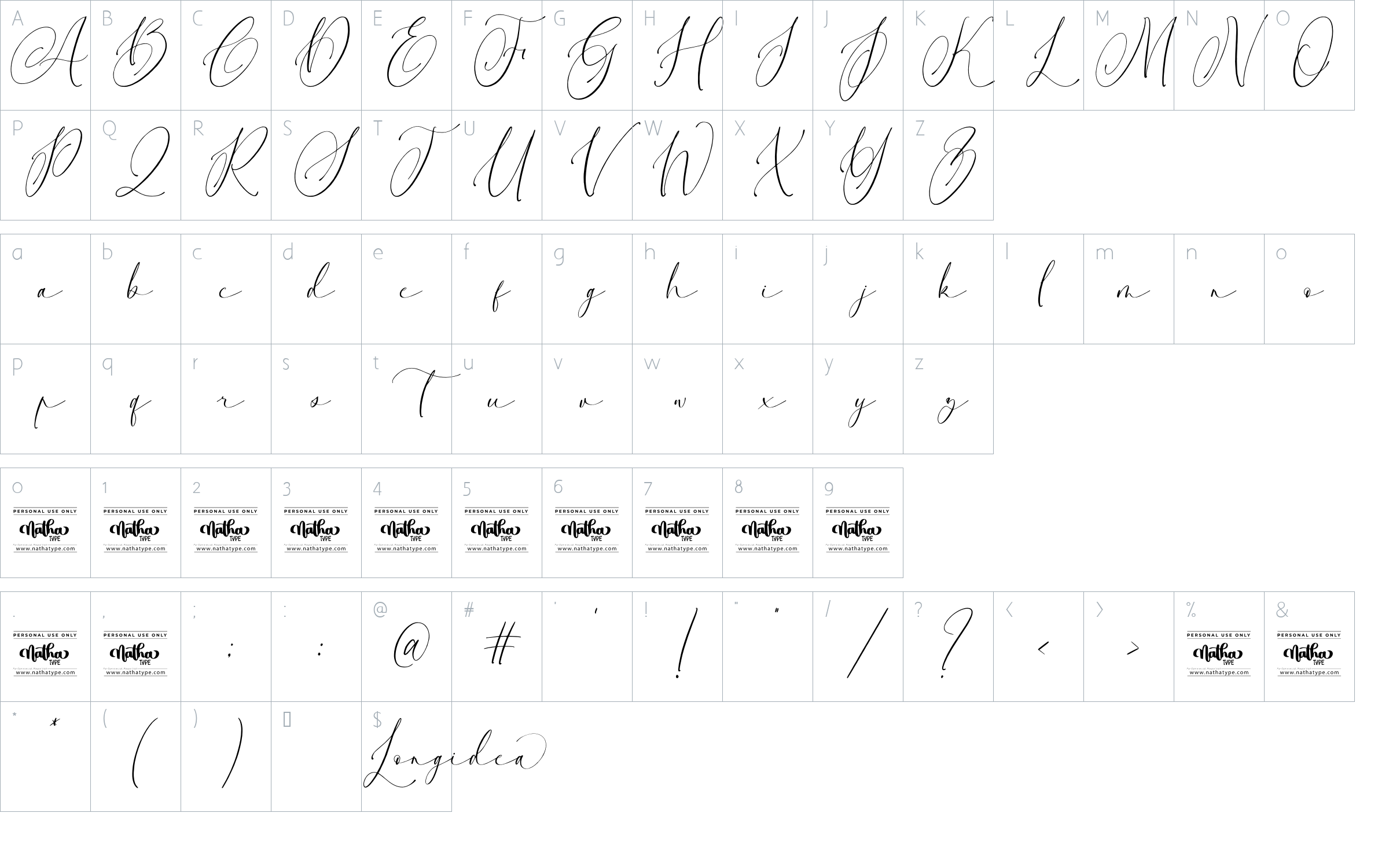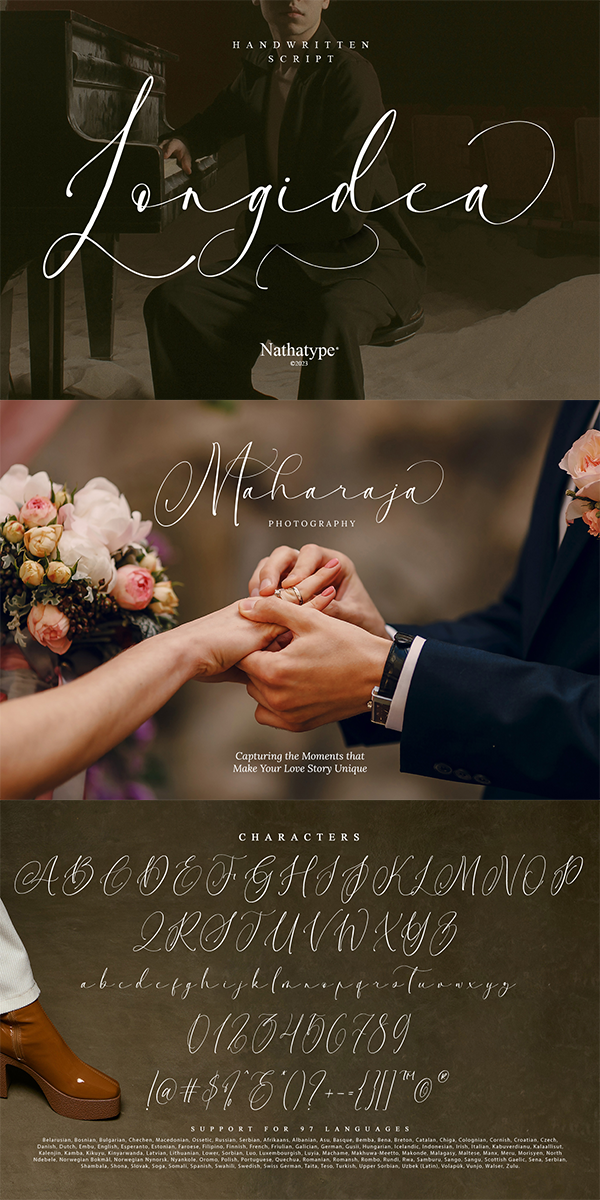
Longidea Font
About Longidea
Step into the world of eloquence with Longidea, a script font that embodies the grace of cursive handwriting while boasting a timeless elegance that captivates the eye. This font is a testament to the seamless fusion of artistry and sophistication. Each meticulously crafted letter bears the hallmark of graceful calligraphy, inviting readers on a visual journey through sweeping arcs and gentle curves.
The height of each letter is artfully varied, contributing to a dynamic visual rhythm that adds depth to your text. This contrast brings an air of authenticity, mimicking the organic variations that arise from the hand’s natural movement. While Longidea maintains a consistent proportion for each letter, its charm lies in the generous spacing between characters. This breathing room enhances legibility and bestows a sophisticated openness upon the text. The overall effect is one of uncluttered elegance, ensuring that each word stands out with grace and clarity. Enjoy the features here.
Longidea fits in headlines, logos, posters, flyers, invitations, name cards, branding materials, print media, editorial layouts, and many more. Find out more ways to use this font by taking a look at the font preview.